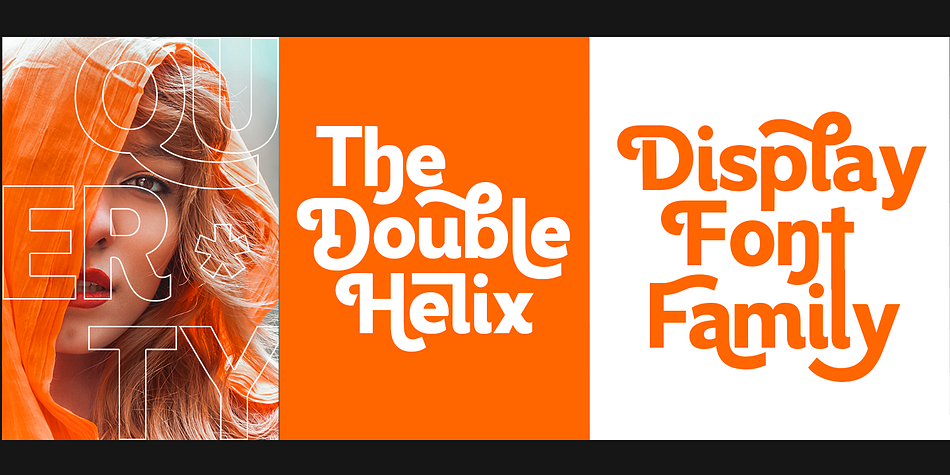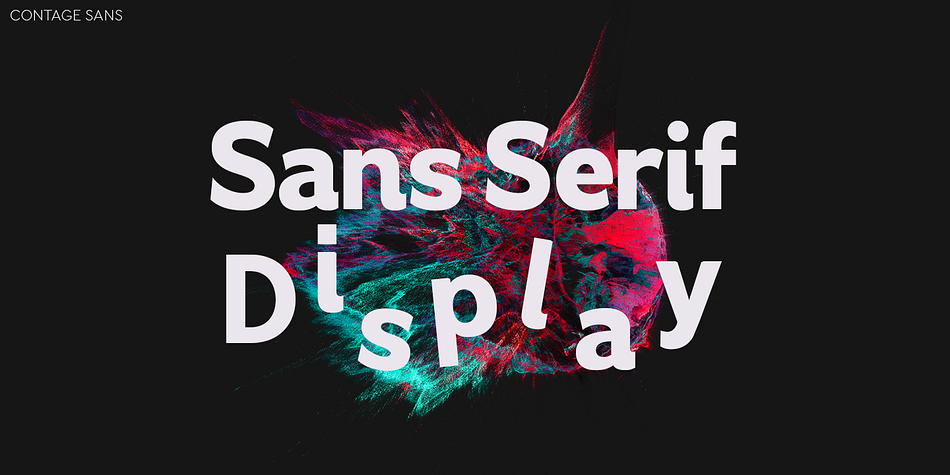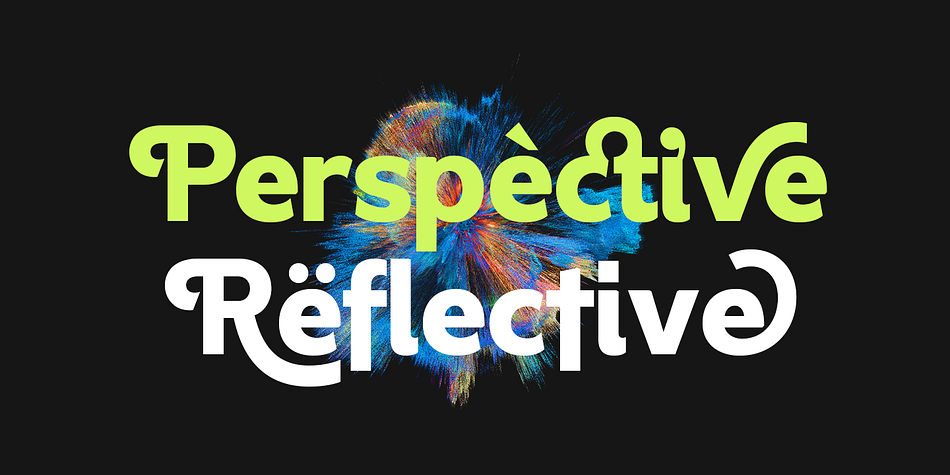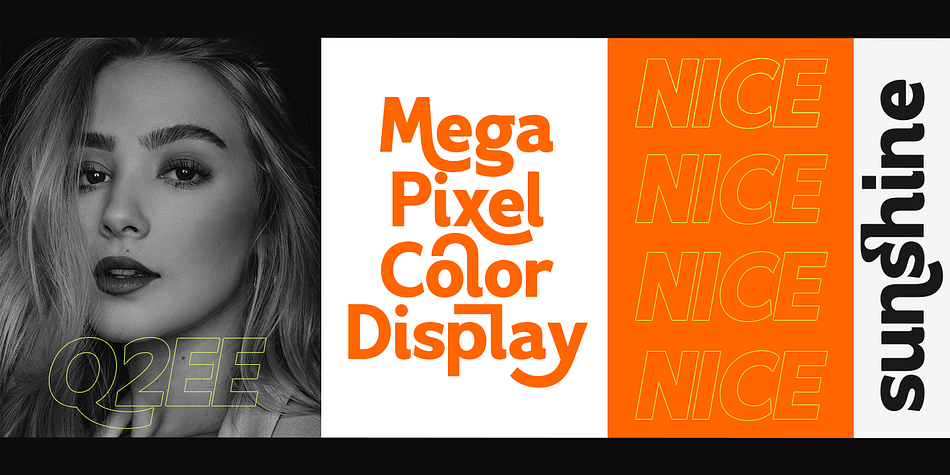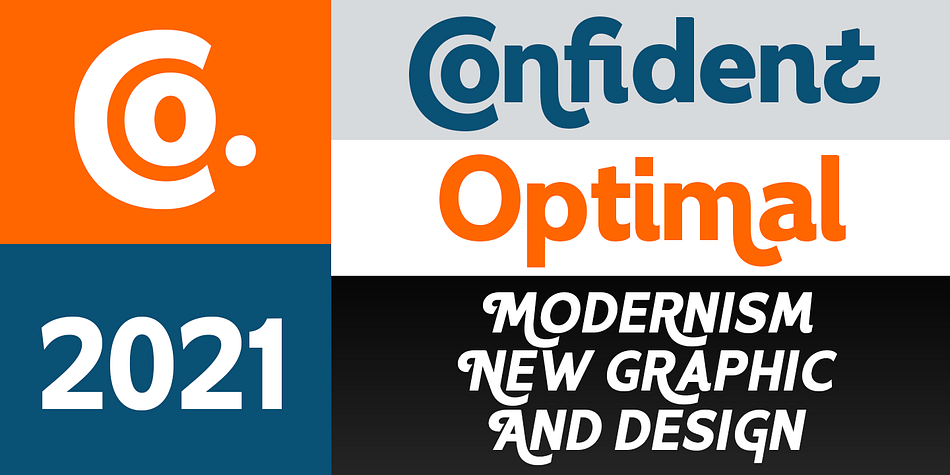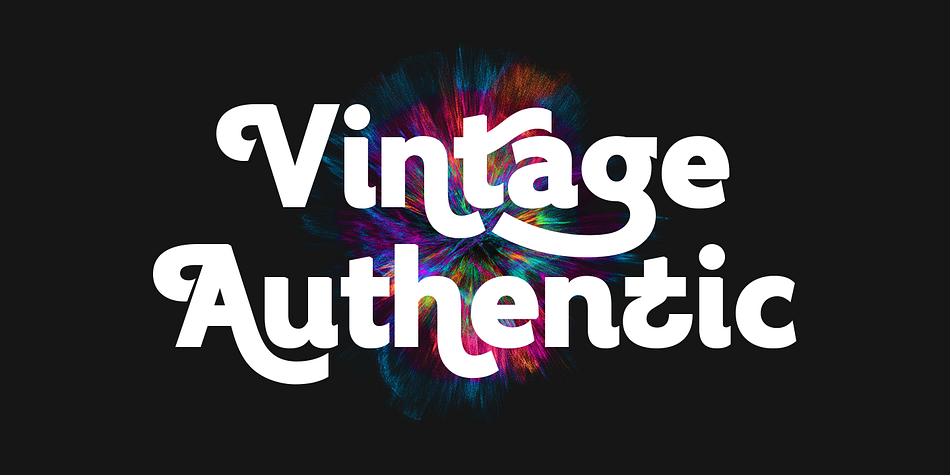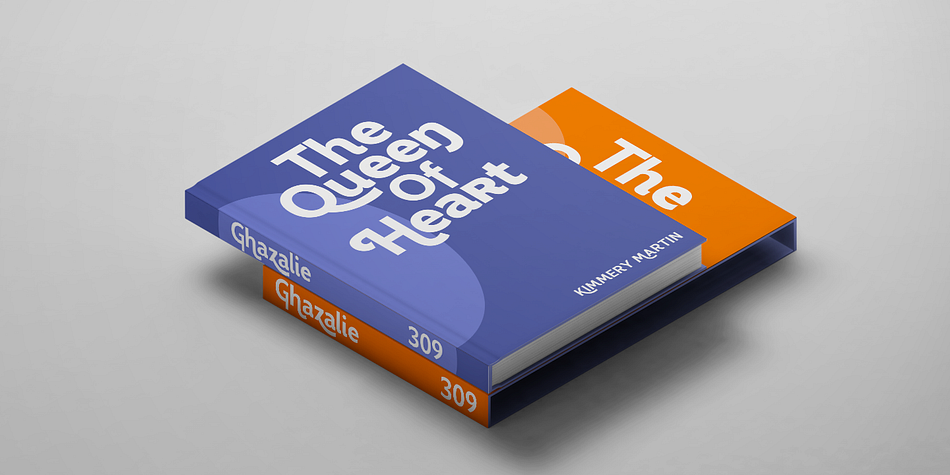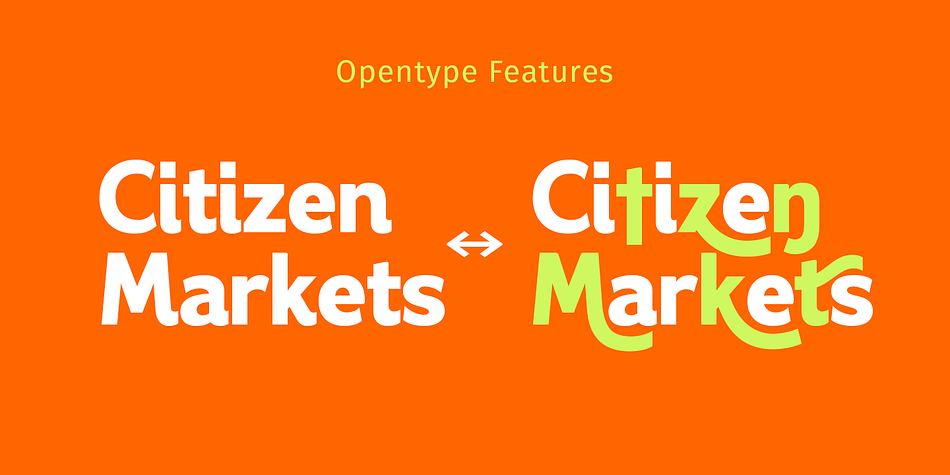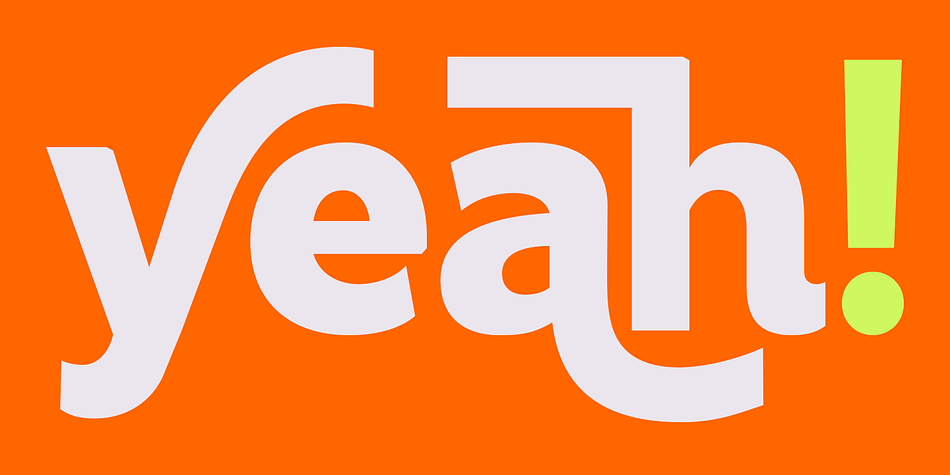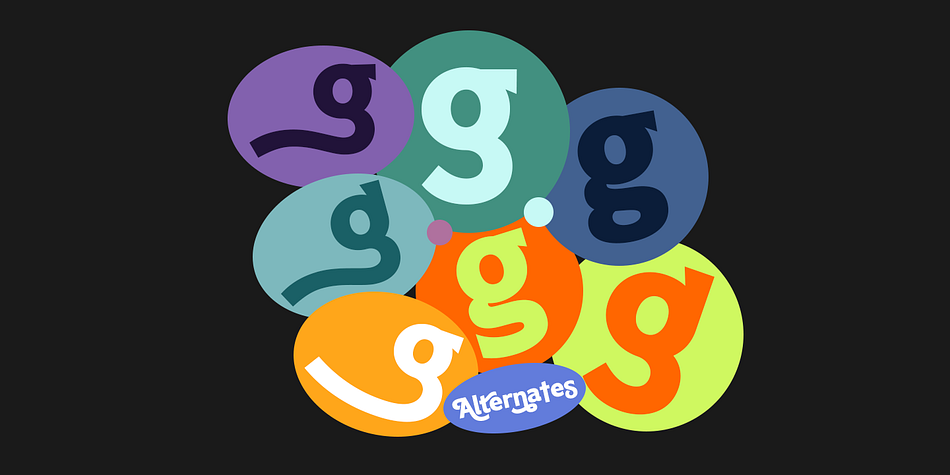
Contage
Designed by Mulkan Nazir, Contage is a sans serif font family. This typeface has twelve styles and was published by Great Studio.
Contage is the Display Sans Serif family, designed to look modern & minimal in any setting. Designed for optimal readability, its clean geometric look is perfect for things like fashion, magazine, logo, branding, headers, titles, corporate brochure designs.
Typeface also supports Latin-based languages. Other details include 12 font weights, 368 characters, manually edited kerning and the Opentype alternates feature.